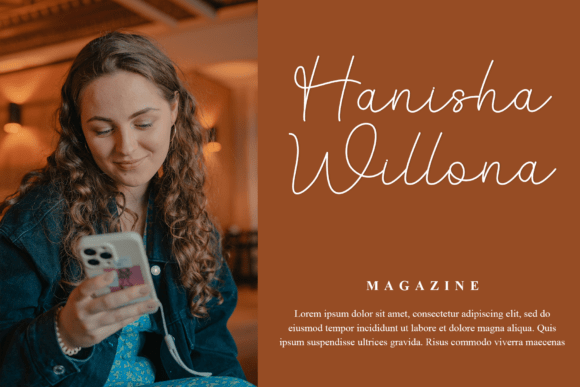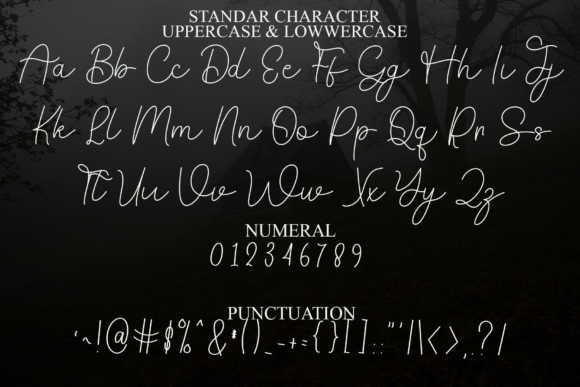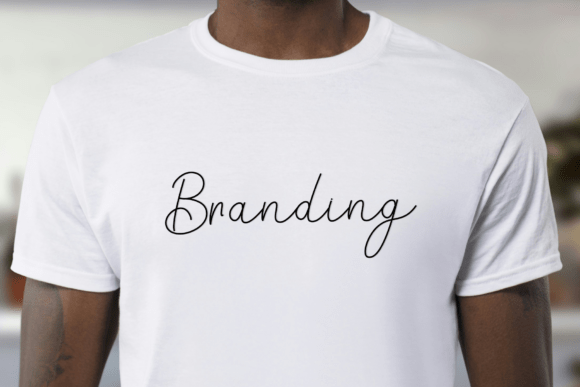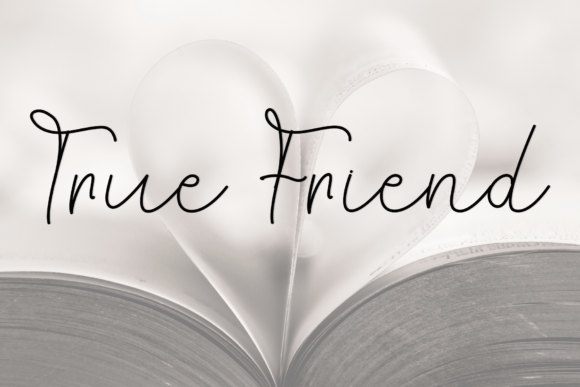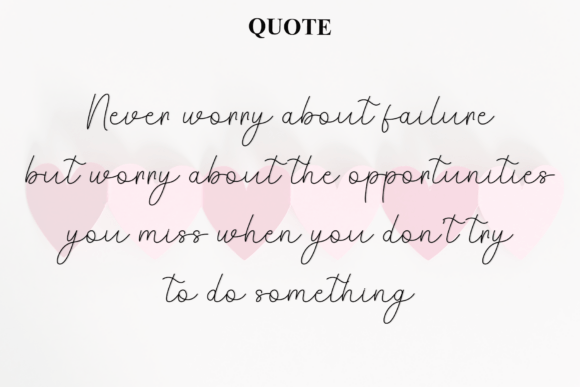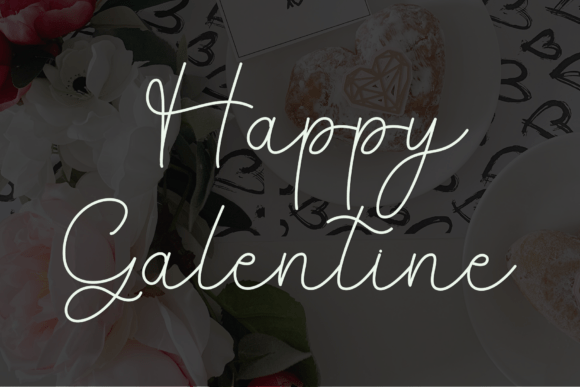
Introducing Beauty Galentine Font: The Perfect Companion for Creative Designs
Are you on the hunt for a font that embodies warmth, friendliness, and a dash of playfulness? Look no further than the Beauty Galentine Font! This casual and creative typeface is designed to bring a relaxed and approachable feel to your personal projects, invitations, social media graphics, and more. In this article, we’ll dive into the charming world of Beauty Galentine, exploring its unique features, versatility, and the endless possibilities it offers for designers and crafters alike.
The Charm of Beauty Galentine
Beauty Galentine Font boasts round, playful strokes that immediately capture the eye. Its hand-drawn aesthetic is not only charming but also adds a fun and unique touch to any design. Whether you’re working on a DIY craft project, creating custom invitations, or designing engaging social media content, this font is sure to make your work stand out. The beauty of Beauty Galentine lies in its ability to convey a sense of warmth and friendliness, making it perfect for projects that require a personal touch.
The possibilities with Beauty Galentine Font are truly endless. Here are just a few ideas to get you started:
- Personal Projects: Add a touch of personality to your journals, planners, and DIY crafts.
- Invitations: Create custom invitations for parties, weddings, and other special events that exude warmth and friendliness.
- Social Media Graphics: Elevate your social media content with eye-catching graphics that showcase your unique style.
- Branding: Use Beauty Galentine as a part of your brand identity to convey a sense of approachability and warmth.
Why Choose Beauty Galentine?
With so many fonts available, why choose Beauty Galentine? Here are a few compelling reasons:
- Unique Aesthetic: Its hand-drawn, playful strokes offer a refreshing alternative to more traditional fonts.
- Easy to Read: The clear and rounded design ensures that your text is easy to read, even in smaller sizes.
Getting Started with Beauty Galentine
Beauty Galentine Font is more than just a typeface; it’s a design companion that brings a sense of warmth, friendliness, and playfulness to your creative projects. Its unique, hand-drawn aesthetic, combined with its versatility and compatibility with various design applications, makes it an invaluable asset for designers and crafters. Whether you’re looking to add a personal touch to your DIY projects, create inviting social media graphics, or simply explore new creative avenues, Beauty Galentine is the perfect choice. So why wait? Dive into the charming world of Beauty Galentine and let your creativity flourish!